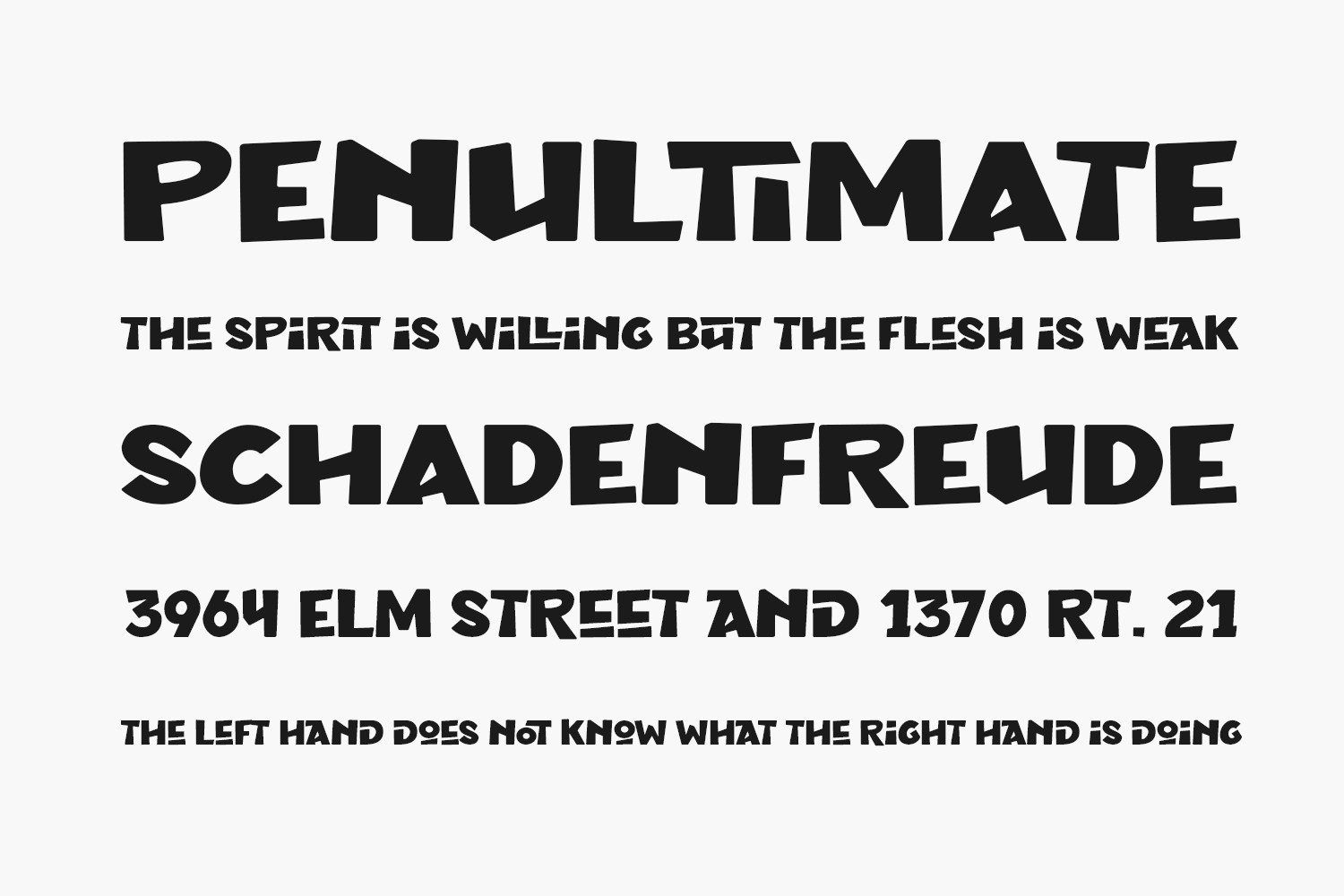
Groze Free Font is a gaming display logotype font. It has fancy, playful, and Cool. It’s a suitable font for gaming, product, fashion, apparel projects, signature, album cover, logo, branding, magazine, social media, & advertisements, but it also works great for other projects.
Designed by Yahdi Kumala